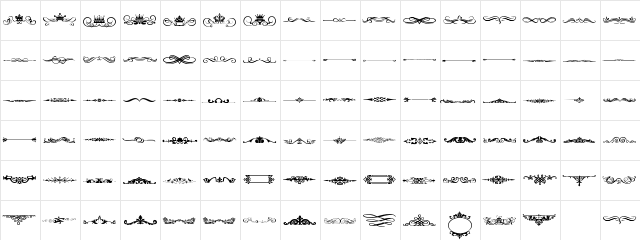
Vintage Decorative Signs 4 Regular
Design Context for Vintage Decorative Signs 4 Typeface
Vintage Decorative Signs 4 has the warm character of retro typography — evoking diners, record sleeves, and the golden age of print advertising.
Font Pairing: Combine Vintage Decorative Signs 4 with a simple slab or neutral sans — period-accurate companions reinforce the vintage feel without competing for attention.
Pro Tip: Lean into Vintage Decorative Signs 4's period character by pairing it with aged paper textures, muted colour palettes, and vintage illustration styles.